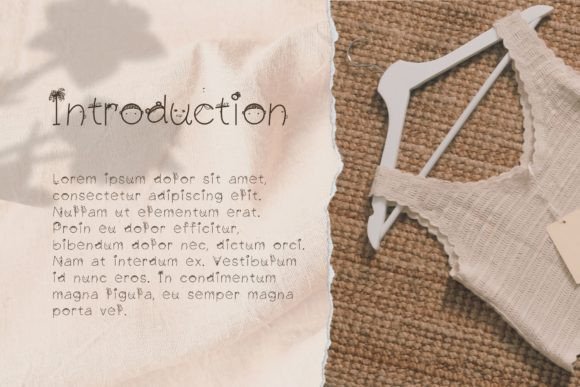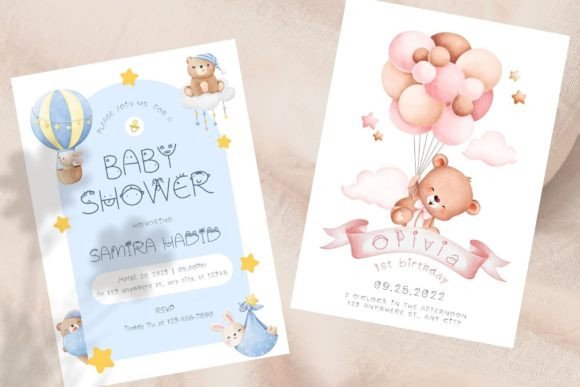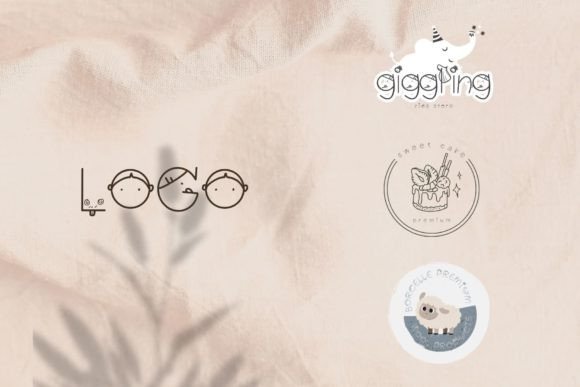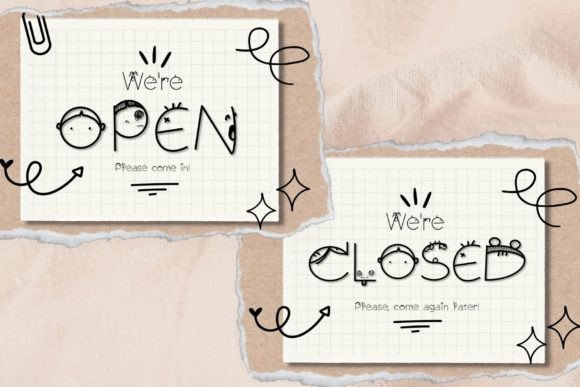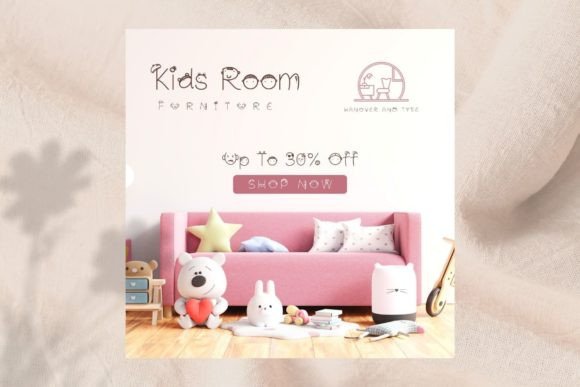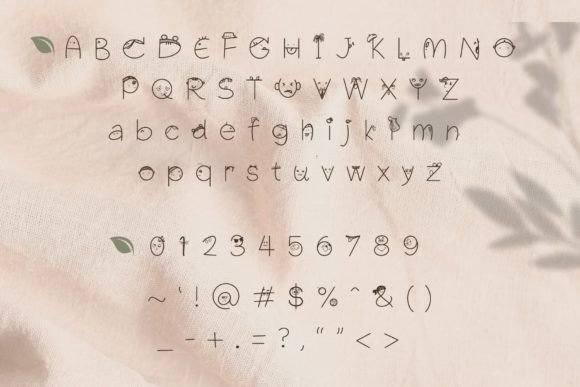
The Cora Font Revelation: Elevate Your Designs with this Unique Handwritten Display Font
I still remember the day I stumbled upon the Cora font while working on a branding project for a trendy boutique hotel. I had been searching for the perfect font to capture the essence of their luxurious yet playful vibe, but everything I tried seemed to fall flat. That was until I laid eyes on Cora – an incredibly unique handwritten display font that instantly became my new obsession!
An Honest Review of Cora Font
What I Love About Cora ✨
- Unique and eye-catching handwritten style that’s perfect for display text
- Exceptional legibility, even at smaller sizes ✅
- Extensive character set, including support for multiple languages
- Beautifully crafted to evoke a sense of elegance and sophistication
- May not be the best choice for body text due to its display-focused design ⚠️
- Some users might find the font a bit too ornate for certain projects
The Story Behind Cora Font
Cora was designed by a talented type designer who aimed to create a unique, handwritten display font that would capture the essence of elegance and sophistication. Inspired by classic calligraphy and modern handwriting, Cora is the perfect blend of traditional and contemporary styles.
Q: What type of projects is Cora best suited for?
A: Cora is perfect for display text, such as titles, headings, and logos. It’s ideal for branding, advertising, and high-end designs.